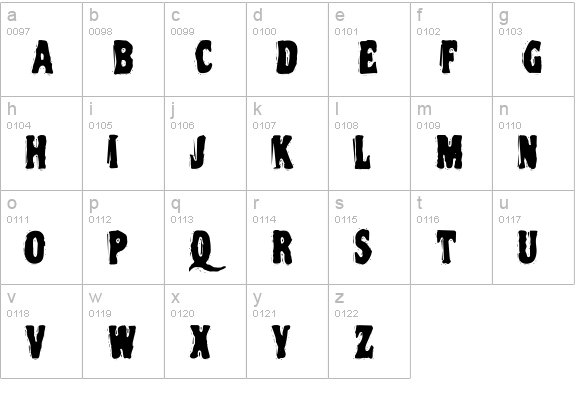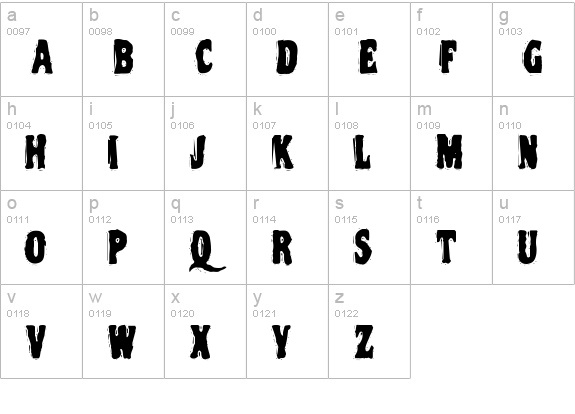
VTC NightOfTheOozieDeadCaps Font Details
VTC NightOfTheOozieDeadCaps font is a stunningly eerie and captivating typeface that will send shivers down your spine. Inspired by the dark and mysterious creatures of the night, this font is perfect for adding a touch of horror and intrigue to your designs. With its intricate details and hauntingly beautiful glyphs, VTC NightOfTheOozieDeadCaps font brings a sense of macabre elegance to any project. Whether you're designing a Halloween party invitation, creating spooky graphics for a haunted house, or simply looking to add a chilling element to your branding, this font is sure to leave a lasting impression. Not only does VTC NightOfTheOozieDeadCaps font embody the essence of the undead, but it also offers the convenience of being free. Yes, you read that right! This font is freely available to download at FontsMarket.com. You can easily access this font and bring your chilling visions to life without breaking the bank. So, why wait? Embrace the darkness and unleash the power of VTC NightOfTheOozieDeadCaps font in your designs. Let its eerie charm captivate your audience and transport them into a world filled with spine-tingling excitement. Download this font today and embark on a thrilling typographic journey.